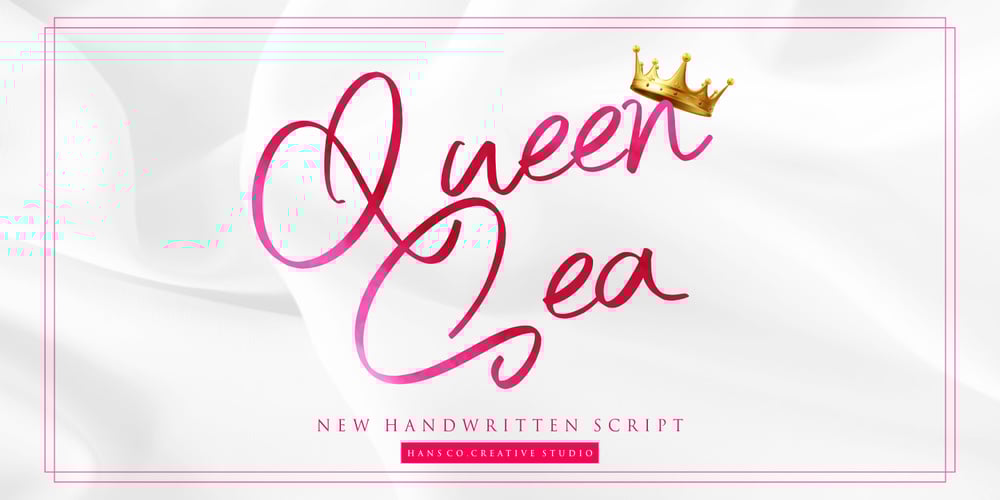
Queen Sea
Queen Sea font
Queen Sea Font Family was designed by Burhan Afif and published by HansCo. Queen Sea contains 1 styles and family package options. Queen Sea is a fun script font with a curly alternate and swash look that is perfect for multipurpose projects. This font looks feminine and will fit well in any design and very recommended for crafts, posters, books, branding, quotes, print templates, packaging, invitations, music labels, product labels, logos and more. This typeface comes in uppercase and lowercase, with punctuation, symbols, numerals, swashes, alternates and also has multilingual support. Swashes is alternate from numeral 0 – 9, You can access swashes from your OpenType panel in your design software. Tutorial how to Install & use Alternate / Special Character : https://hanscostudio.com/tutorial/ Enjoy !